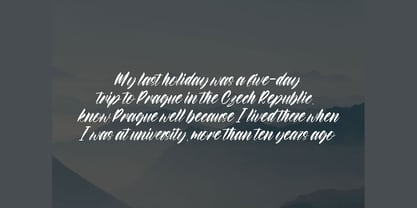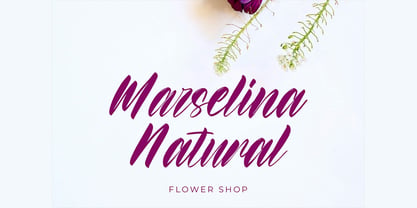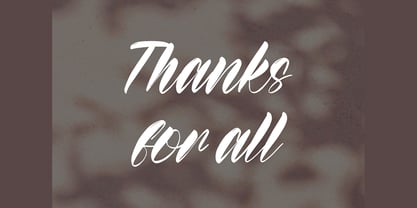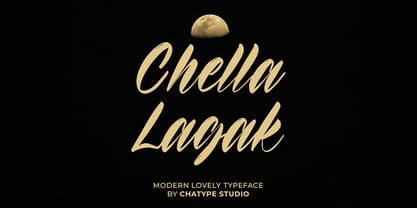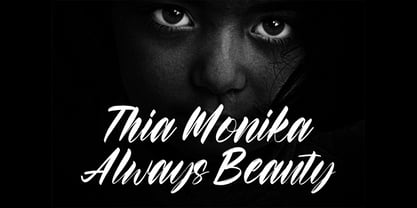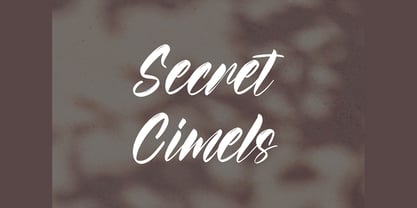
Chella Lagak
by Chatype Studio
The Chella Lagak Font Family was designed by and published by Chatype Studio. Chella Lagak contains 1 styles. More about this family
Chella Lagak is a vintage script font that exudes hand-drawn charm and rustic energy. With a brush-style aesthetic and organic stroke flow, it offers a lively and textured appearance that captures attention without overwhelming the design. Its casual slant, uneven baseline, and rough ink texture lend a handmade warmth, making it ideal for creative projects with an authentic, retro feel. The font includes uppercase and lowercase letters, punctuation, symbols, numbers, and extensive multilingual support, ensuring versatility across various languages and applications. Whether you’re working on retro logos, handcrafted labels, apparel, or signage, Chella Lagak adds character and nostalgia.